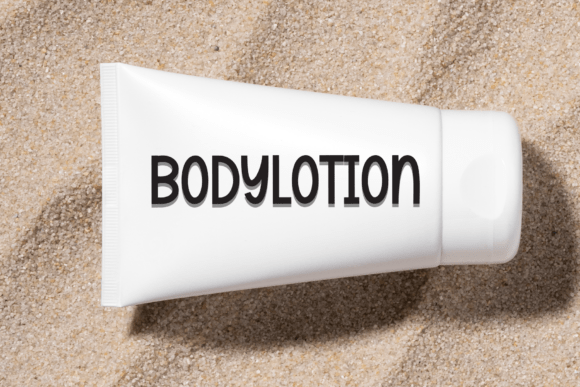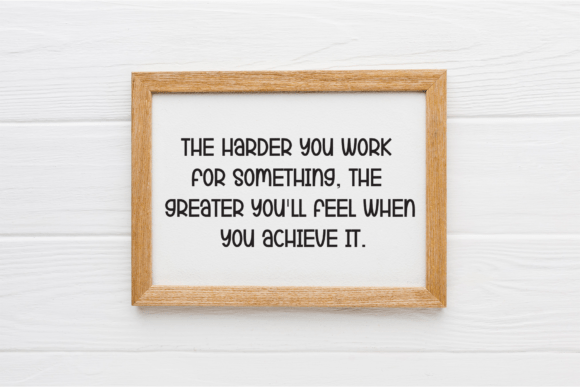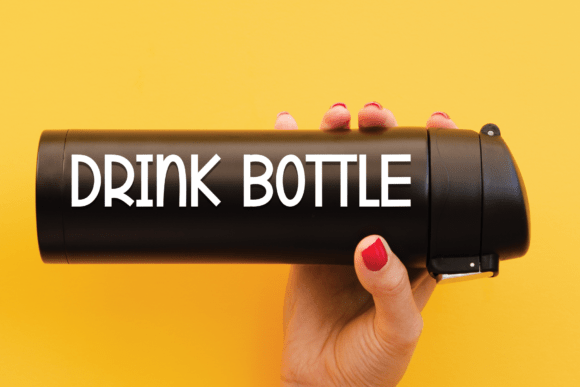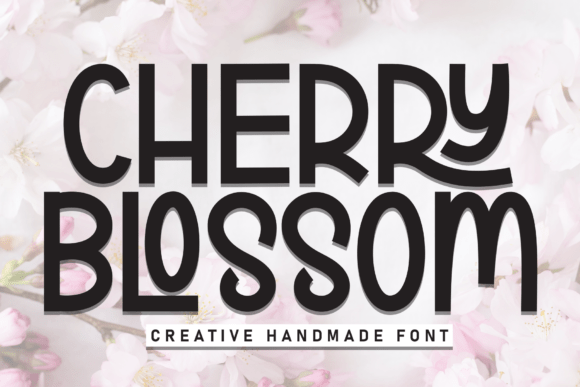
Introduction to Cherry Blossom Font
Cherry Blossom is a casual and neat display font that radiates a fresh, friendly vibe.
With clean lines and a relaxed structure, it’s perfect for packaging, posters, and social media graphics The approachable design adds charm and clarity to projects while maintaining a polished appearance.
Key Features of Cherry Blossom Font
Why Choose Cherry Blossom Font?
Cherry Blossom Font offers exceptional quality and versatility, making it a valuable addition to your design toolkit. Whether you’re creating for personal projects or commercial use, Cherry Blossom Font delivers professional results.